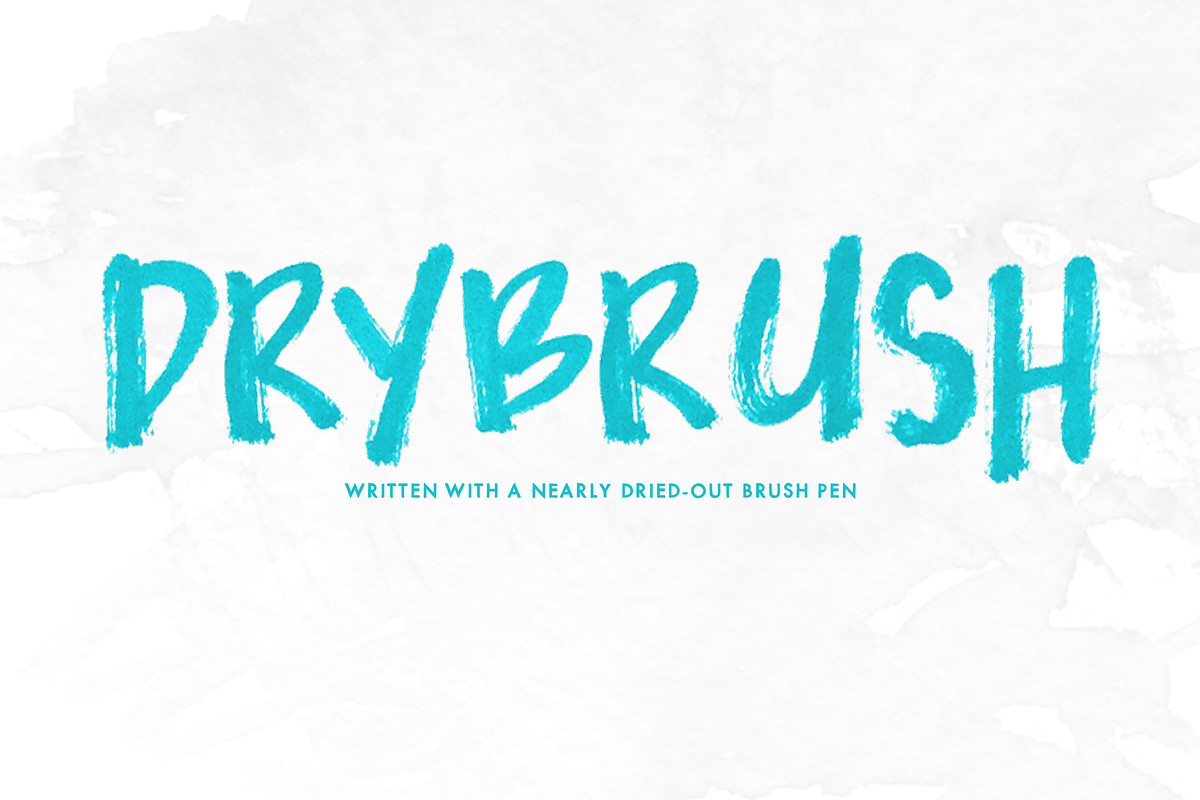
Drybrush — OpenType SVG Font Trio Free Download
Please note, to use this font for commercial purposes, you must purchase the full version. Drybrush is a creative OpenType SVG font trio that brings a dynamic, hand-painted feel to your designs. With three unique styles, this font trio is perfect for logos, posters, branding, and creative projects that need a raw, artistic touch. Whether you're designing for a personal brand, an artistic event, or a modern marketing campaign, Drybrush adds an expressive and bold flair to your work. Test it out and enjoy free download access for personal use. Experience the versatile, hand-crafted style of Drybrush — OpenType SVG Font Trio Free Download before purchasing the commercial license. Add a fresh, artistic touch to your designs with Drybrush.